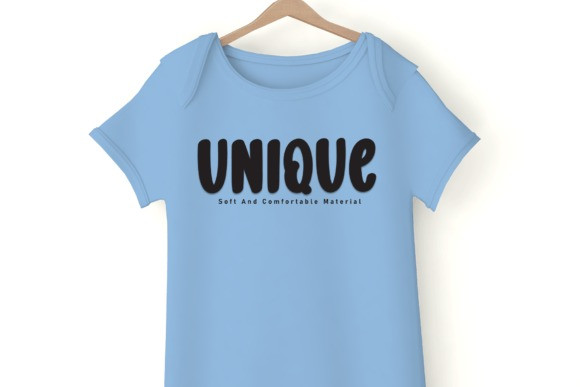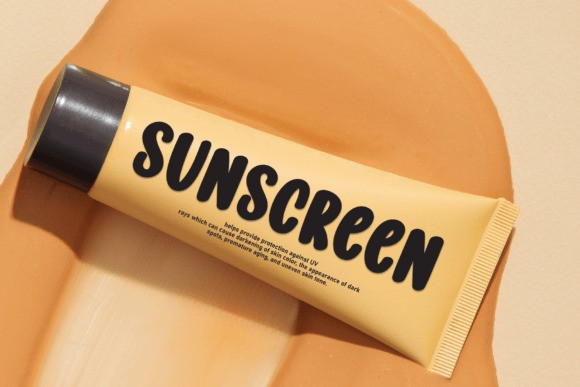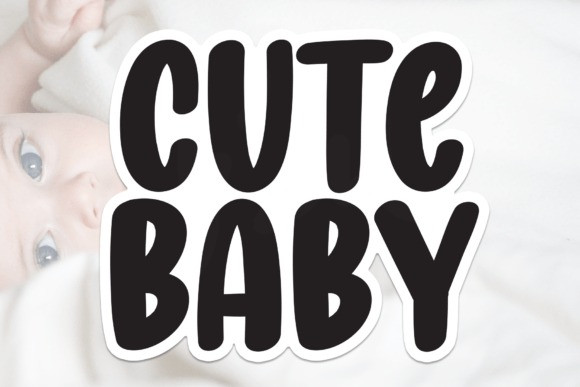
Cute Baby Display Typeface
Cute Baby Display Typeface is a fun and versatile sans-serif font. Whether you’re using it for crafting, digital designing, presentations, or greeting card making, it’s perfect!